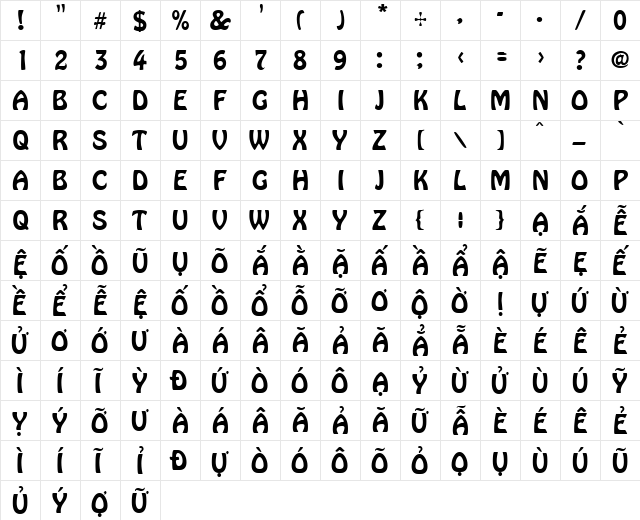
VI Sau Dong Hoa Normal Font Preview
VI Sau Dong Hoa Normal
VI Sau Dong Hoa Normal Font Details
Design Context for VI Sau Dong Hoa Typeface
VI Sau Dong Hoa is a composed and adaptable typeface that performs quietly and consistently across a wide range of design contexts.